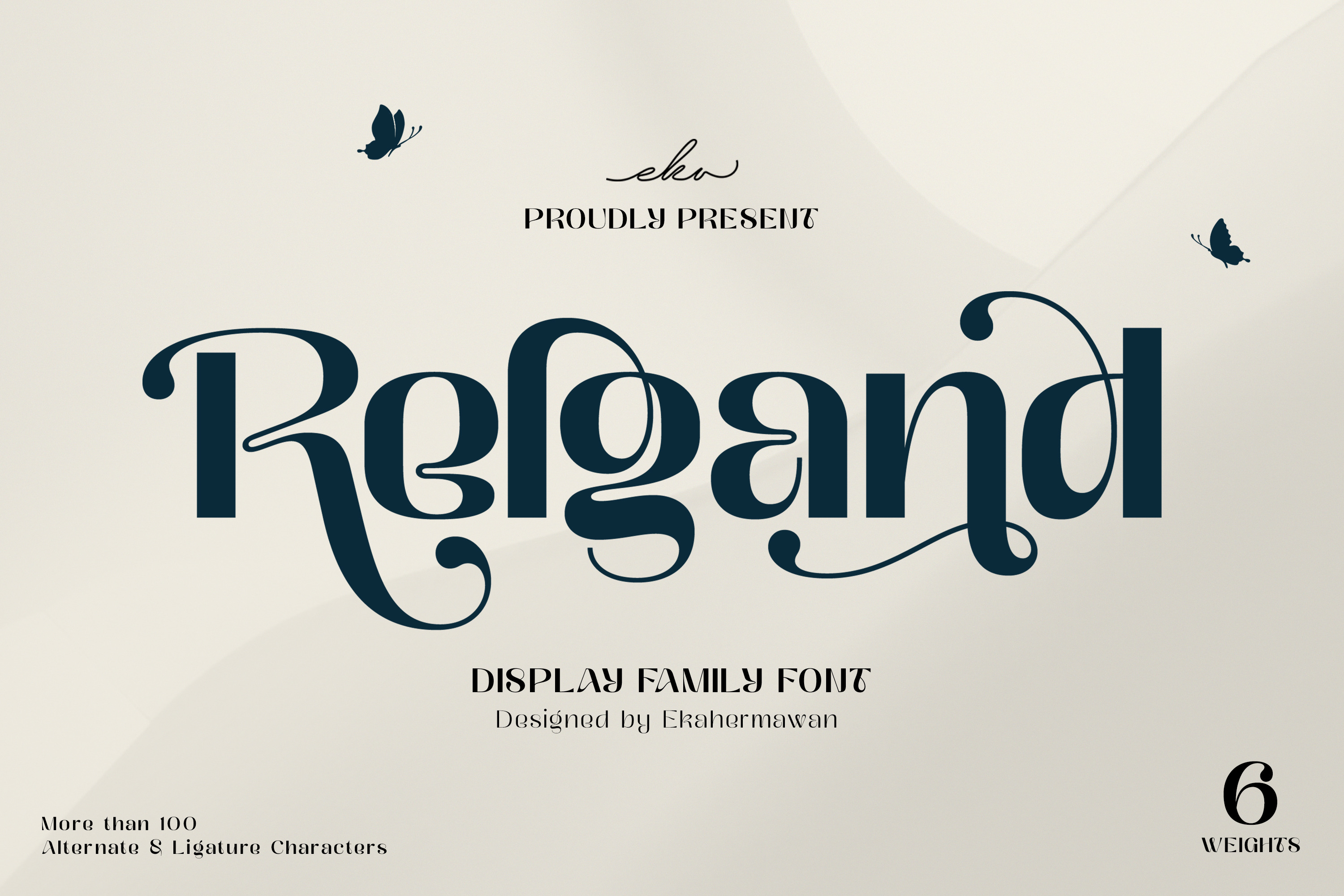
Relgand - Display Family Font
Introducing Relgand - A Versatile Display Typeface with Endless Possibilities!
Elevate your designs to new heights with Relgand, a meticulously crafted display font designed to leave a lasting impression. Ideal for instilling character and distinction into a wide range of projects, this versatile typeface is your ultimate creative companion.
With its extensive set of alternative characters and ligatures, Relgand offers boundless customization options, allowing you to effortlessly create captivating typography that stands out from the crowd. Whether you're designing logos, branding materials, posters, or social media graphics, this font provides the flexibility you need to make your designs truly unique.
But that's not all – Relgand doesn't just stop at versatility. It boasts an impressive range of weights, from the delicate strokes of Thin to the commanding presence of Bold. Whatever the project demands, you'll find the perfect weight to convey your message with confidence and style.